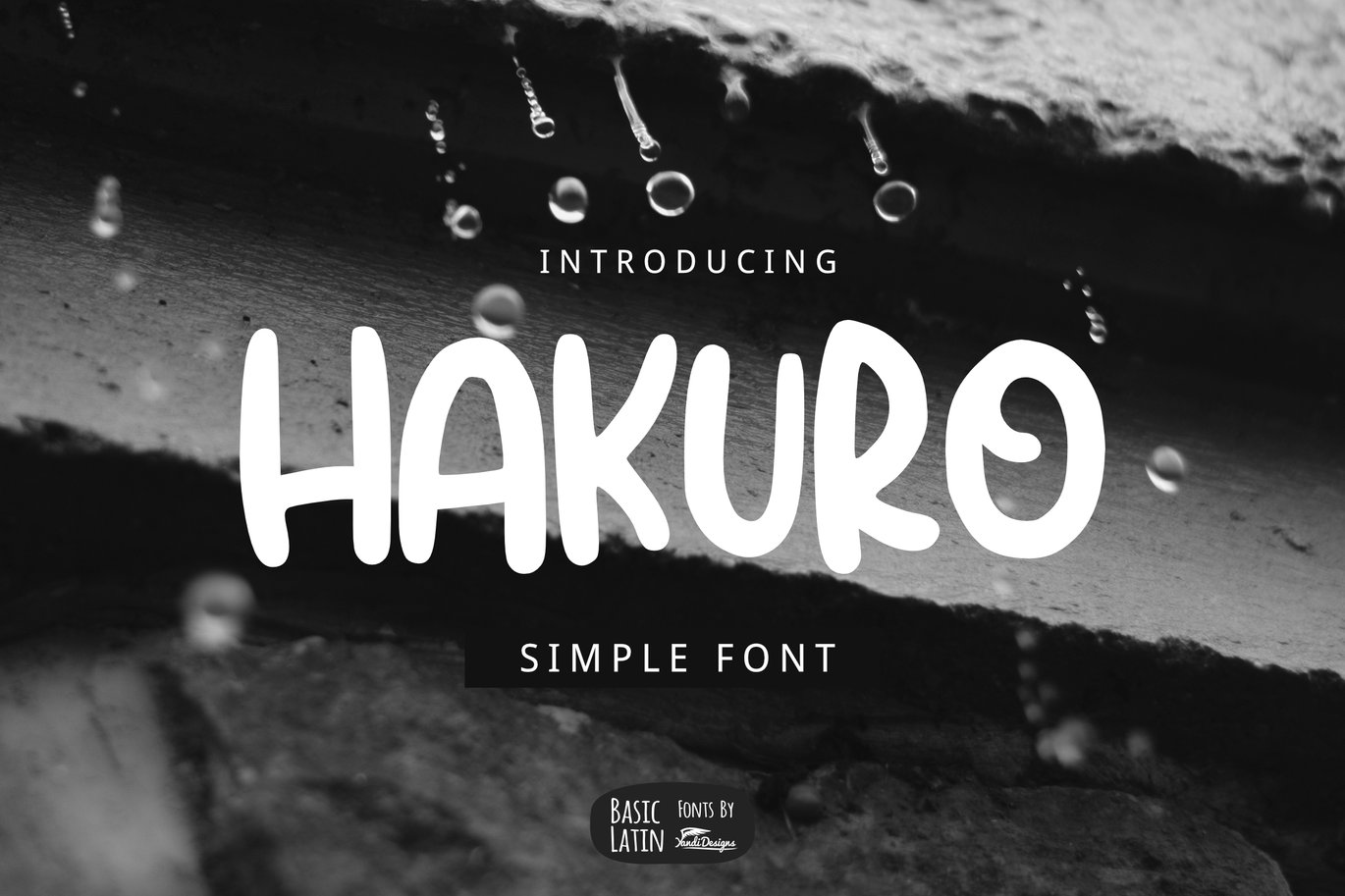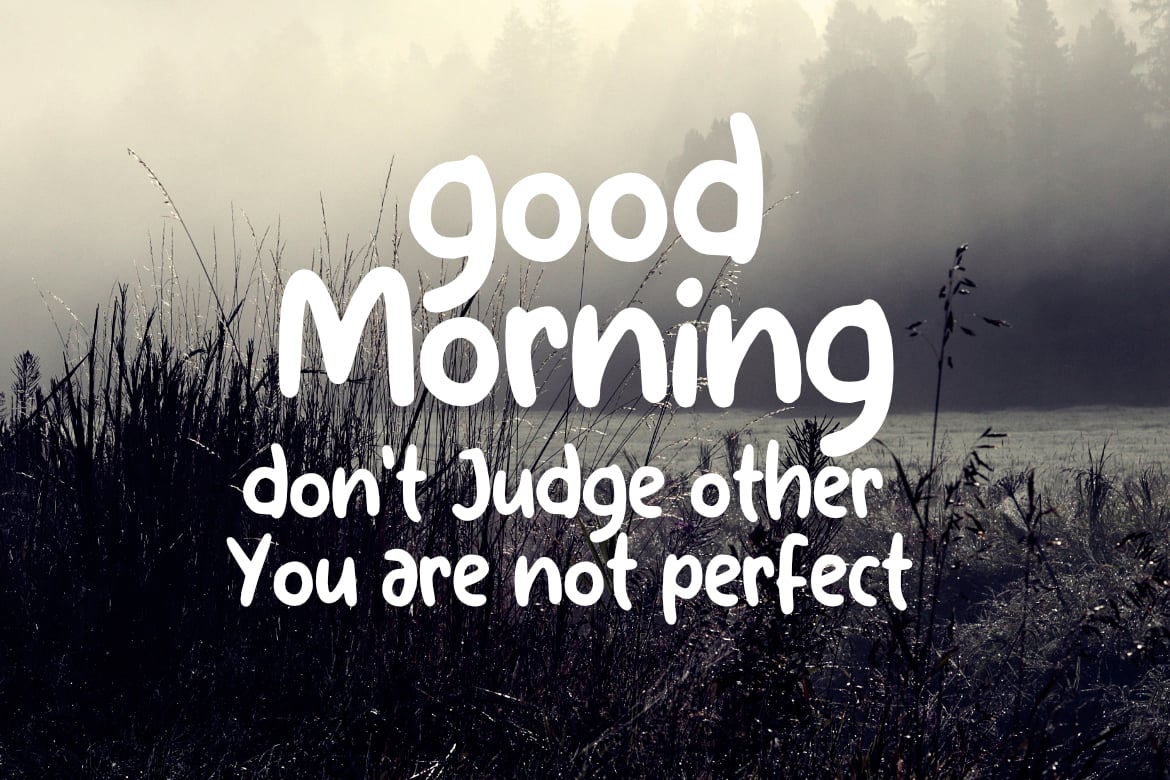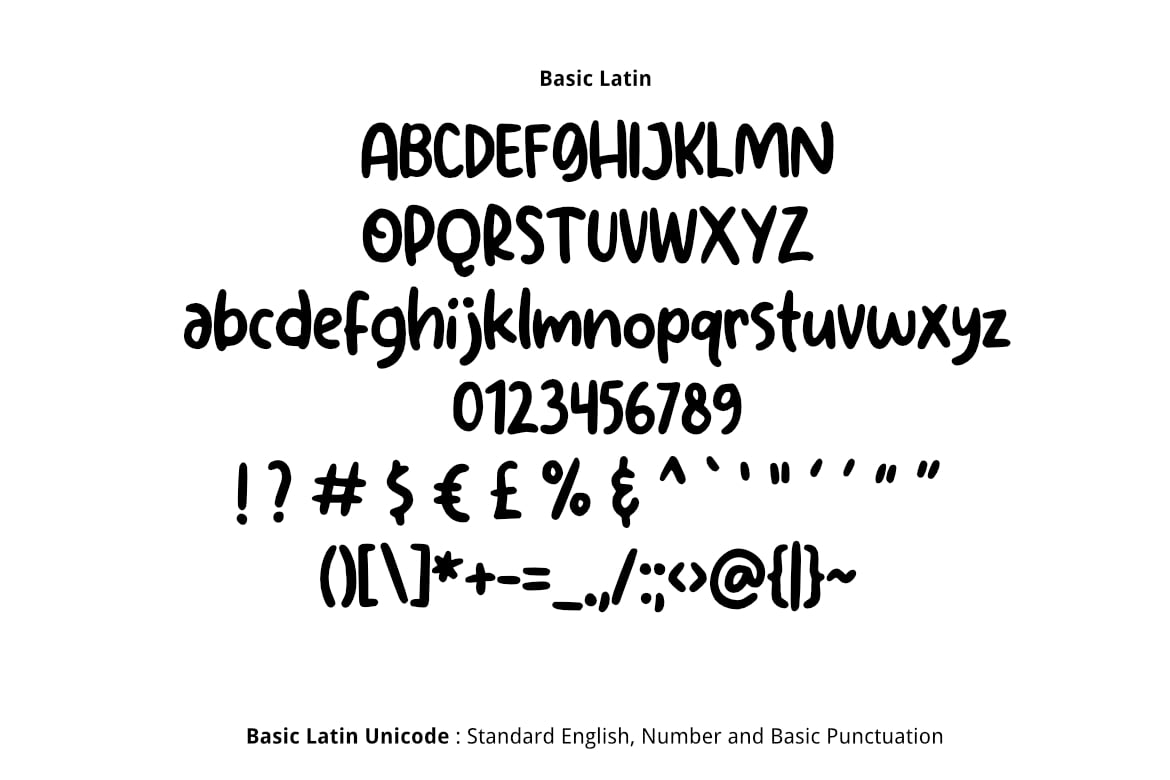
Hakuro Marker Font
Hakuro Font
Hakuro or White Dew font is simple, cute, multipurpose marker handwritten font , suitable for many project children book, quotes, logo , heading , title etc.
Basic Latin (Standard English character , number, symbol)